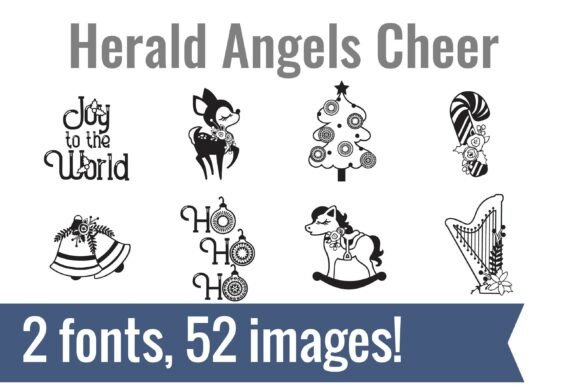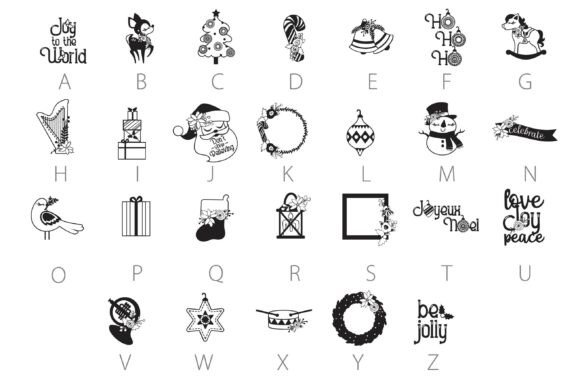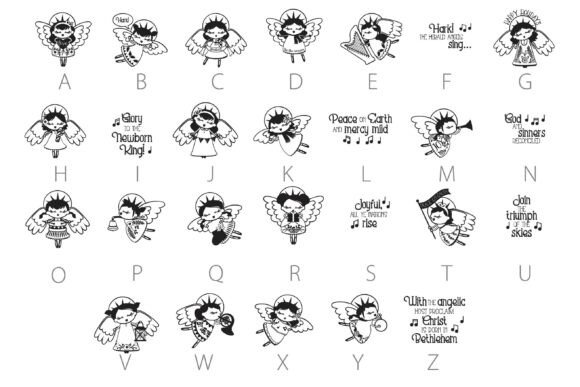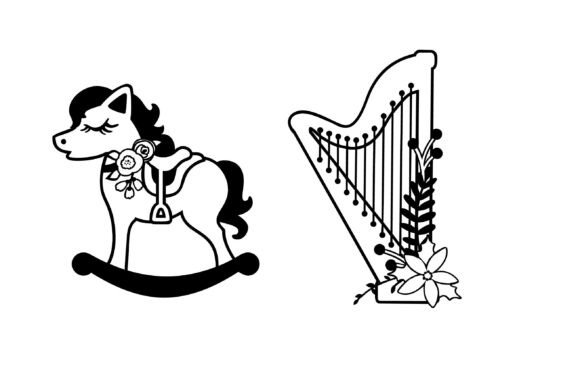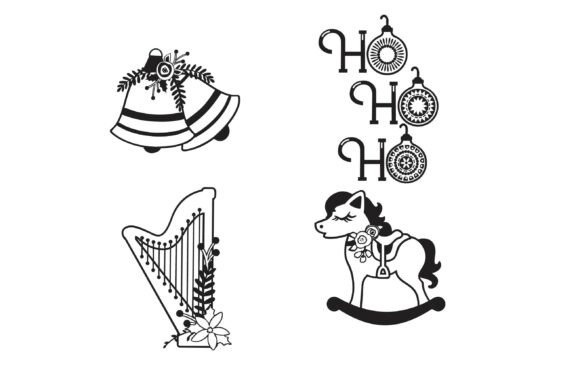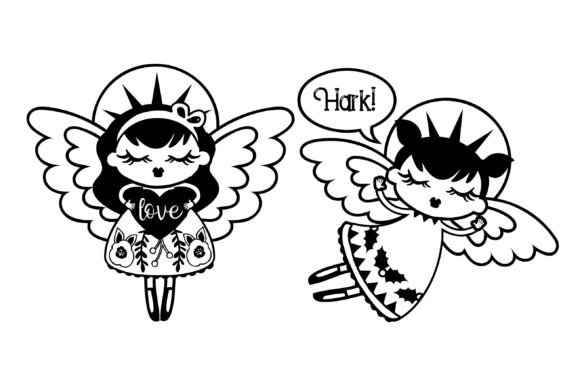
Unlock the Magic of the Holiday Season with Herald Angels Dingbats Font
As the snowflakes start to fall and the fireplace crackles to life, we all know that the holiday season is just around the corner. It’s a time for creativity, love, and connection with those around us. For designers, it’s the perfect opportunity to bring joy and warmth to their projects through beautiful typography. And what better way to do that than with the Herald Angels Dingbats Font?
This enchanting font bundle features two intricately designed dingbat typefaces, bursting with festive charm and character. With 52 beautifully detailed, vector-ready angel glyphs to choose from, you’ll have endless possibilities for crafting unique and personalized holiday designs. Whether you’re creating sentimental Christmas cards, designing intricate vinyl decals, or working on religious-themed decor, the Herald Angels Dingbats Font is sure to bring a touch of magic to your projects.
- Unique Characteristics: The Herald Angels Dingbats Font features a distinctive set of dingbat symbols, including angels, stars, and other festive icons, adding a touch of whimsy to designs.
Herald Angels Dingbats Font Review
Overall, I think the Herald Angels Dingbats font is a delightful and quirky addition to any design project. ✨ Its hand-drawn feel and playful charm make it perfect for creating whimsical and festive designs.
One of the things that really stands out about this font is its versatility. It’s suitable for use in a wide range of contexts, from children’s books and magazines to advertising and packaging.
- Unique and playful design that adds a touch of personality to any project
- Highly versatile and suitable for a wide range of contexts
- Easy to read and use in both digital and print formats
- May not be suitable for use in formal or professional contexts
- Can be overwhelming if used excessively or in large quantities
- May require additional design elements to balance out its playfulness
Overall, I think the Herald Angels Dingbats font is a great choice for designers looking to add some personality and whimsy to their projects. With its unique design and versatility, it’s sure to be a hit with clients and audiences alike.
Use Herald Angels Dingbats Font to add a touch of whimsy and playfulness to your designs. It’s perfect for:
– Holiday cards and gift tags
– Children’s party invitations and decorations
– Whimsical logo designs
– Handwritten-style typography